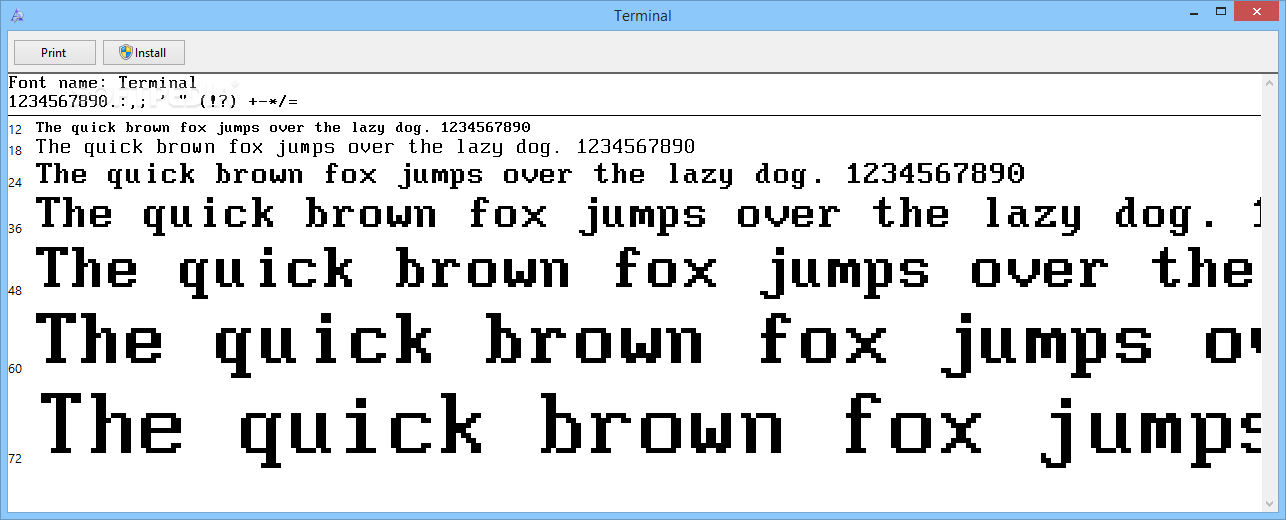
Terminal Font Description
Terminal Font comes as a substitute for the default Fixedsys font present in the DOS-Box of any Windows operating system. As the author of this particular font, many other users might have felt that Fixedsys is not the best looking font in the world, thus Terminal was born.
Using the Terminal Font of the NewDOS pack, you can deploy it to your system so you can enjoy it in DOS-Box as well as any other consoles you might work in. The sizes it comes in start with 8x13 and end with 12x23, thus covering a wide array of options (9x16 and 10x19 are also included).
The bottom line is that Terminal Font is not a TrueType Font, thus it does not suit any Windows application. Its sole purpose was to take the place of the unattractive existing Microsoft provided font for consoles and DOS-Box.